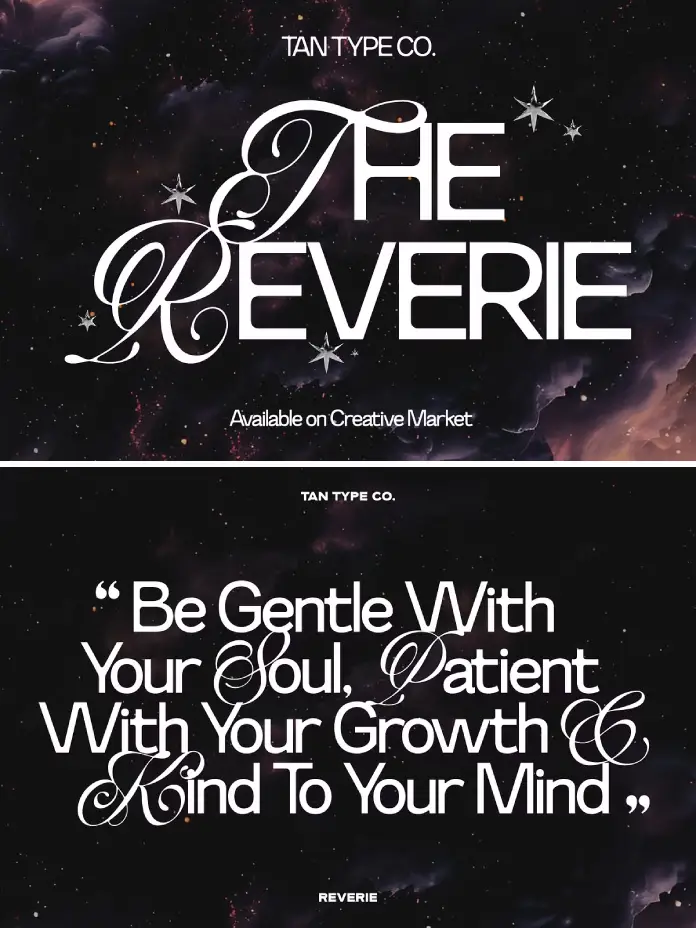
Honestly, TAN The Reverie Is the Modern Font That Makes Script Relevant Again
Script fonts earned their bad reputation. Years of overuse in wedding stationery, lifestyle blogs, and fast-fashion packaging left them feeling exhausted. Most designers quietly retired them from serious branding work. Then TAN The Reverie by TanType arrived and complicated that consensus entirely.
This typeface does something structurally interesting. It takes a clean, minimal sans-serif foundation and introduces expressive script uppercase letters — not as decoration, but as a deliberate design system. The result feels simultaneously timeless and current. Furthermore, it works precisely because it refuses to be just one thing.
So why does this matter right now? Because brand typography is undergoing a quiet crisis. Geometric sans serifs have colonized every sector of design. Everything looks credible, neutral, and completely forgettable. TAN The Reverie offers a genuine alternative — one that earns its distinctiveness through contrast rather than decoration.
What Makes TAN The Reverie Stand Apart From Other Modern Sans-Serif Fonts?
Most contemporary sans-serifs pursue consistency above everything else. They prioritize neutrality, geometric precision, and visual silence. TAN The Reverie takes a different architectural position entirely. It deliberately introduces tension between its two typographic registers — and that tension is exactly the point.
The script’s uppercase letters are the defining move. They carry a calligraphic, hand-informed quality that reads as genuinely refined. Set against the clean, minimal lowercase body, these letters create what I call the Script-Sans Contrast Principle: a design condition where a single typeface operates across two aesthetic registers simultaneously without losing internal coherence.
This principle matters practically. In branding, a single typeface must carry personality, legibility, and differentiation — all at the same time. That is a substantial typographic burden. Consequently, designers frequently pair a neutral sans-serif with a script accent font to achieve tonal range. TAN The Reverie builds that tonal range into one family, which removes the complexity of font pairing without sacrificing expressive range.
Additionally, TanType designed this font specifically for branding and creative projects that need polish without losing stylistic personality. That clarity of intent shows in the result. The typeface never feels like it is trying to be multiple things. Instead, it feels like a considered, unified proposition.
The Dual Register Typography Framework
Let me introduce a framework that helps explain what TAN The Reverie achieves technically. I call it Dual Register Typography — a system where one typeface carries two distinct emotional and aesthetic registers simultaneously, each amplifying rather than canceling the other.
In TAN The Reverie, the script’s uppercase functions as the emotional register. It signals warmth, craft, and visual personality. The sans-serif lowercase handles the structural register — clarity, readability, and contemporary restraint. Together, they form a complete typographic voice without requiring a second typeface.
Why This Framework Changes Font Selection Decisions
Consider the creative brief for a luxury skincare brand. The design team needs warmth to feel approachable and precision to feel trustworthy. Typically, that means sourcing two fonts and managing their relationship carefully. Moreover, font pairing introduces hierarchy decisions, weight coordination, and visual rhythm problems that take real time to solve.
Dual Register Typography solves this at the foundry level. TAN The Reverie delivers the warmth through its script capitals and the precision through its sans-serif body — all within a single, coherent system. For independent designers and brand studios with tight timelines, this is a genuinely practical advantage.
The same logic applies to boutique hotel branding, independent fashion labels, editorial publications, and premium food and beverage packaging. Each context demands tonal range. Each benefits directly from a font that provides it structurally.
Polished Tension — A Critical Design Concept in TAN The Reverie
I want to name something that most font reviews miss entirely. There is a specific aesthetic condition at work in TAN The Reverie that I call Polished Tension. This describes the state where opposing typographic qualities coexist without one overwhelming the other.
Many designers attempt this kind of internal contrast and end up with something that simply feels inconsistent. The script element reads as decorative rather than structural. The sans-serif base reads as at odds with its own uppercase. TanType avoids both failures here. The Script-Sans Contrast Principle holds because the contrast feels intentional, not accidental.
The script uppercase reads more graceful precisely because the sans-serif body is so clean. Conversely, the sans-serif reads more alive because the script’s uppercase is so present. Each register amplifies the other rather than competing with it. That reciprocal amplification — that Polished Tension — is the signature quality of this typeface and what makes it worth studying closely.
Is TAN The Reverie suitable for luxury branding?
Absolutely. The combination of clean sans-serif structure and elegant script uppercase in TAN The Reverie makes it particularly strong in luxury-adjacent brand contexts — beauty, wellness, hospitality, independent fashion, and premium food and beverage. The typeface carries both warmth and precision, which are the two tonal qualities that luxury branding most consistently demands.